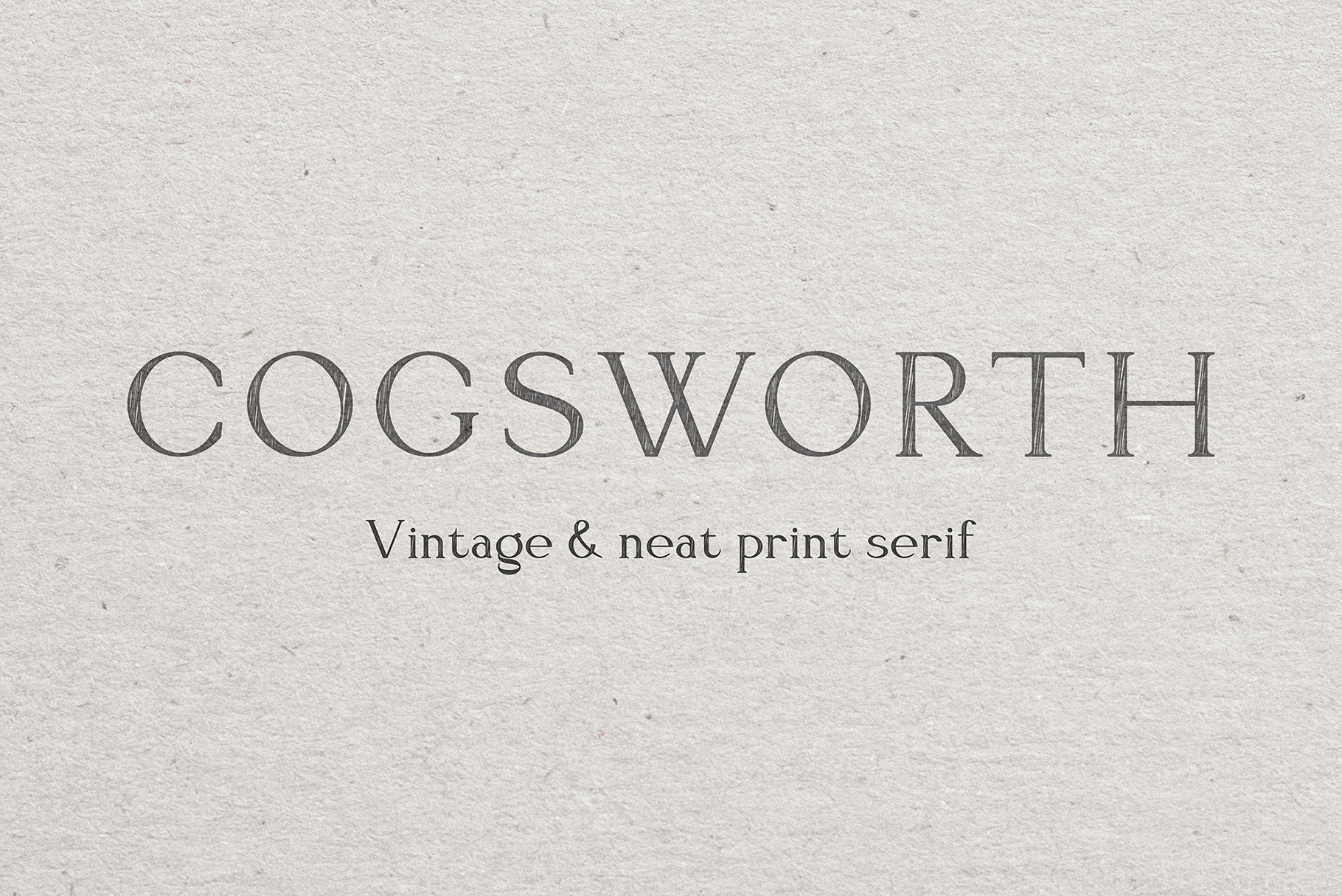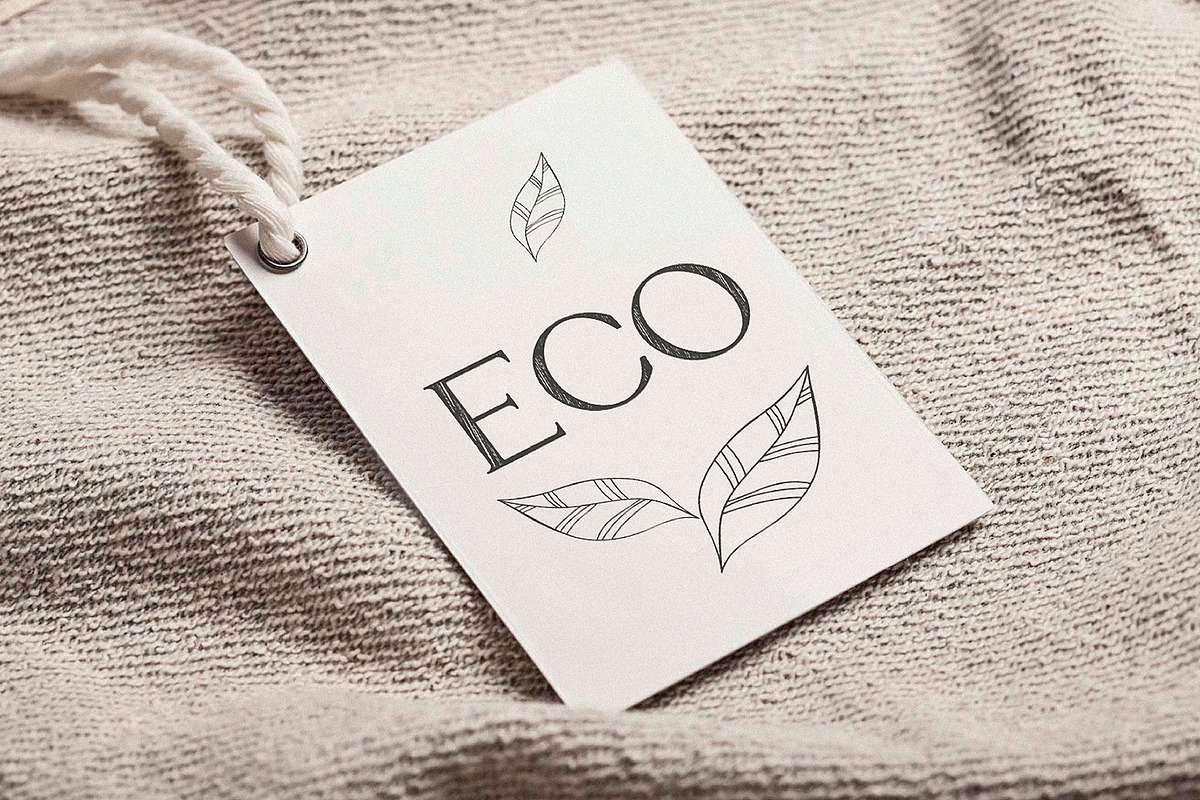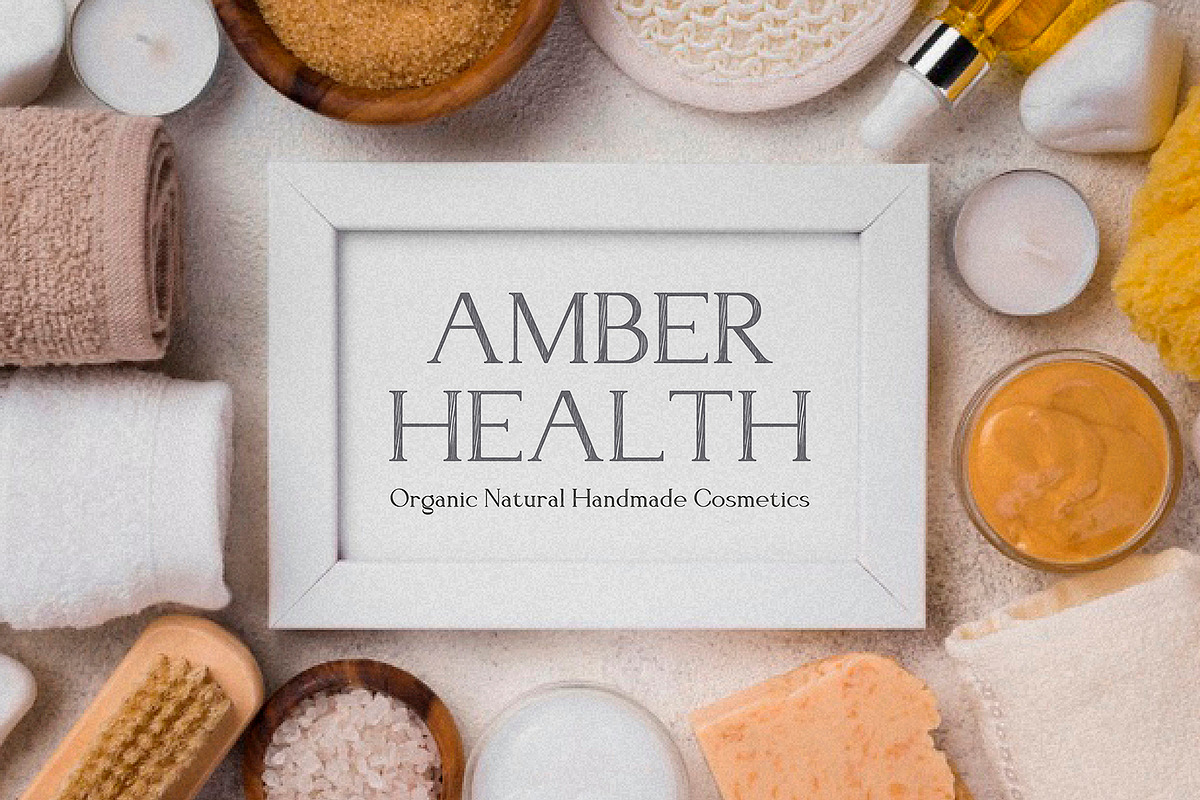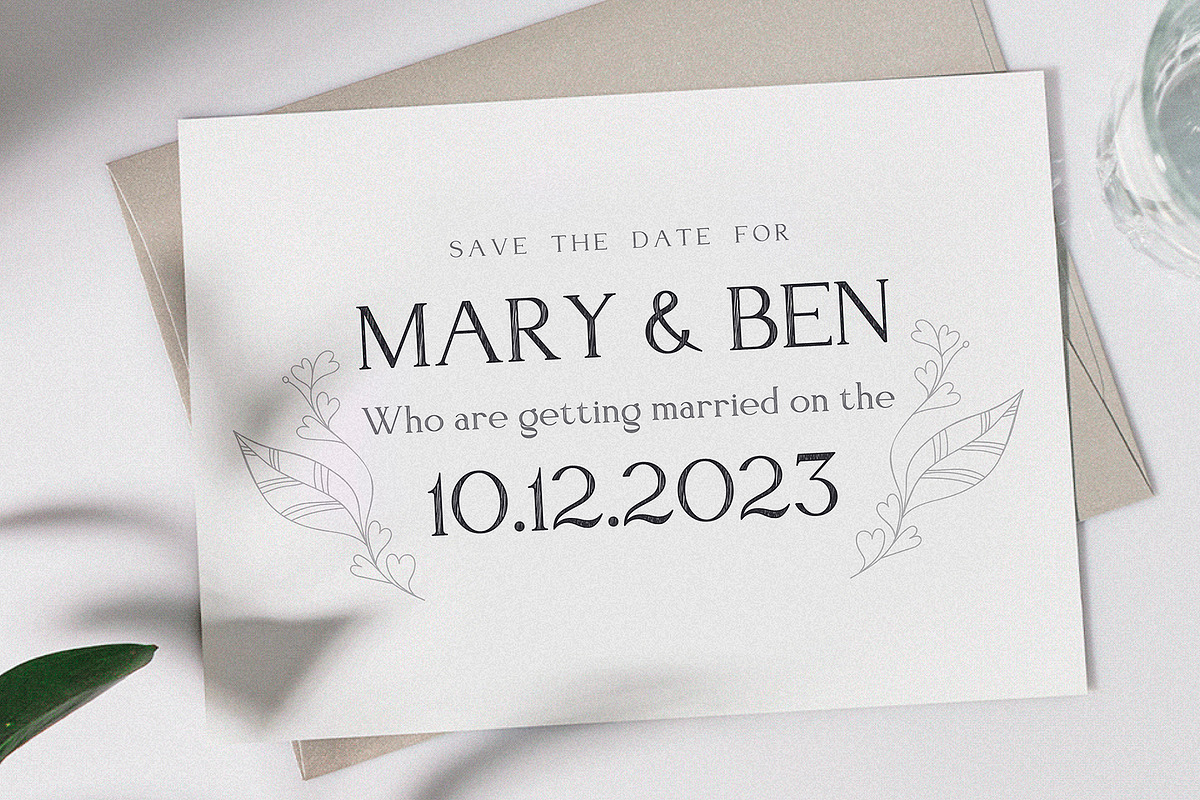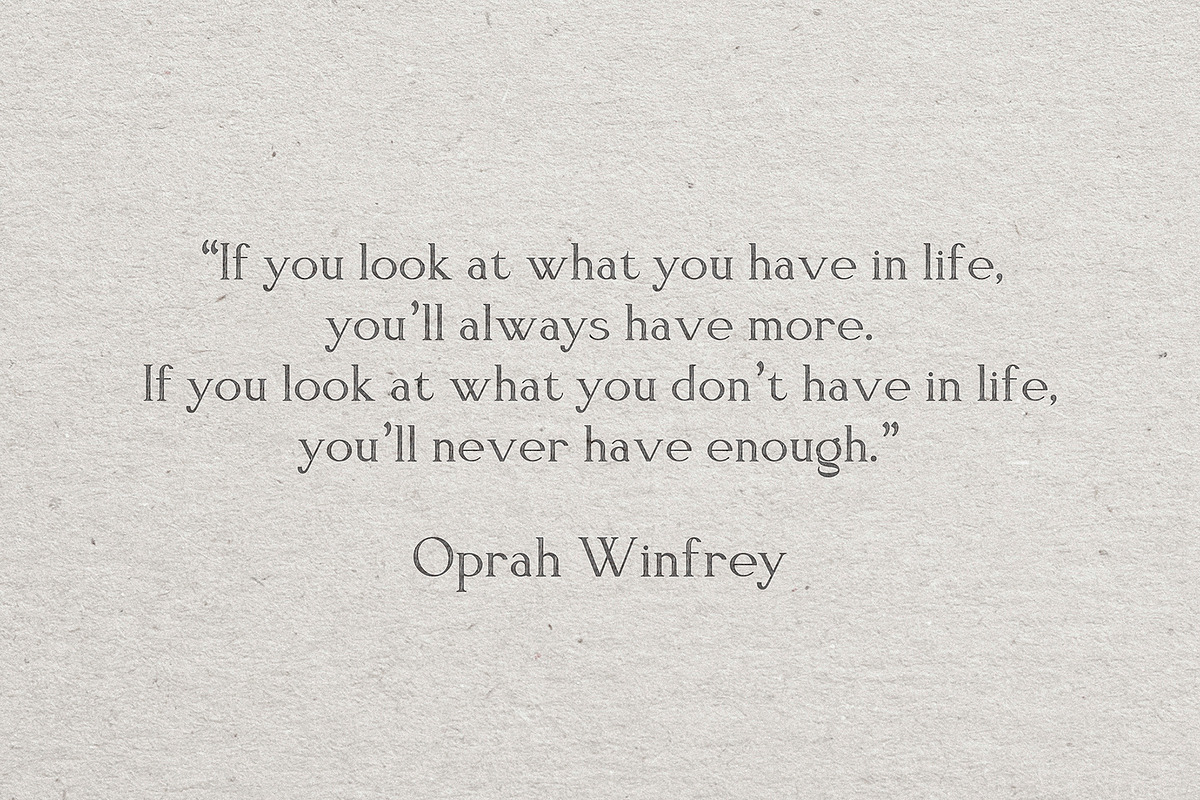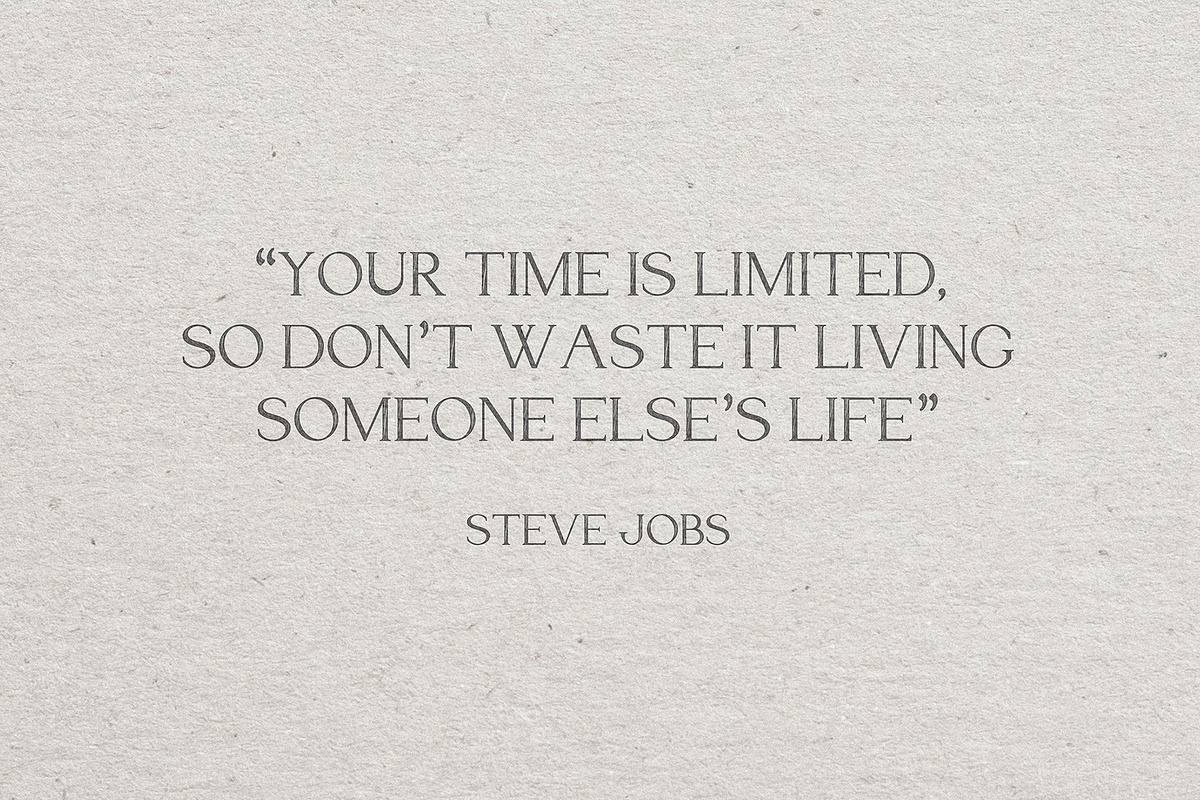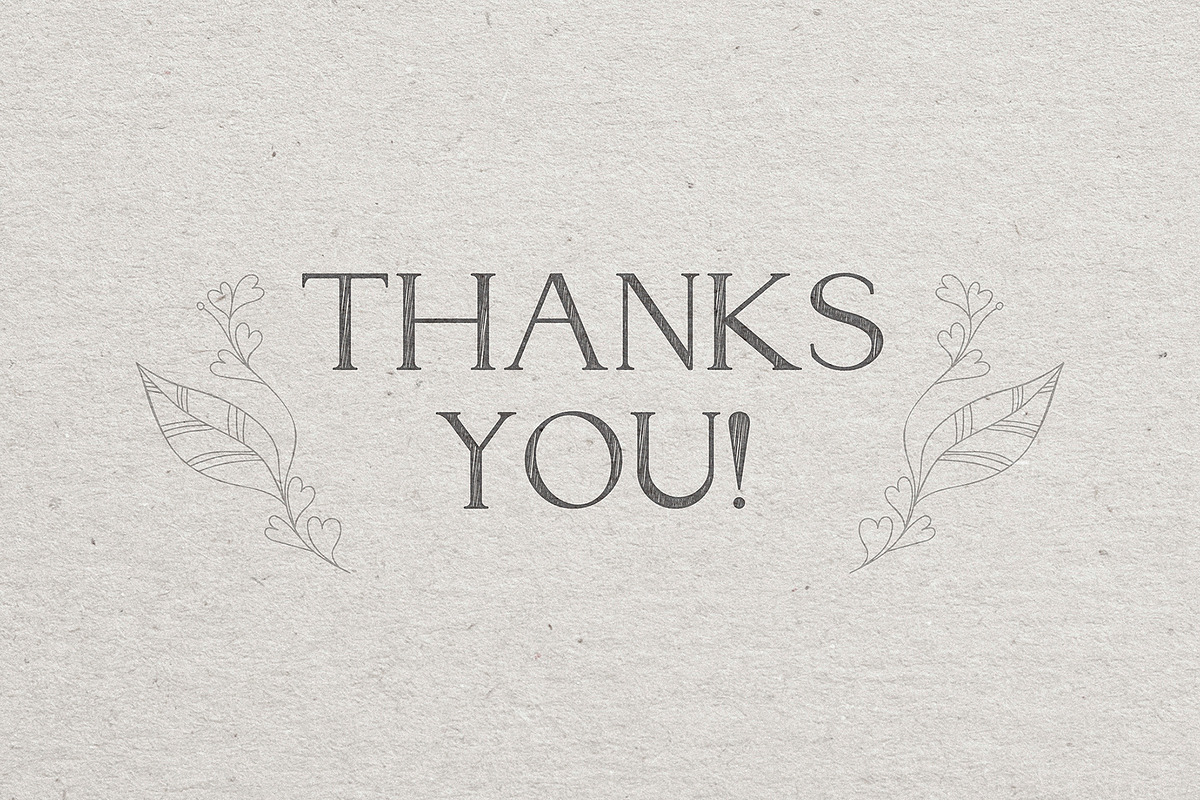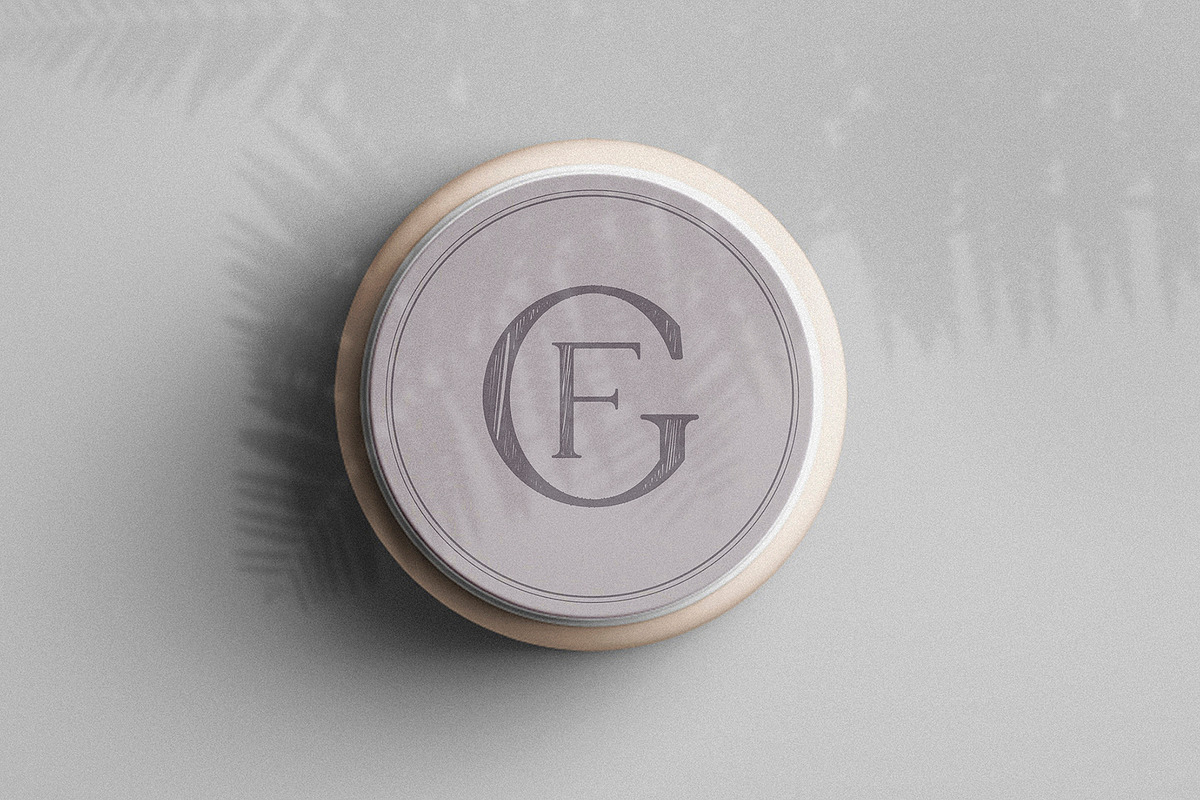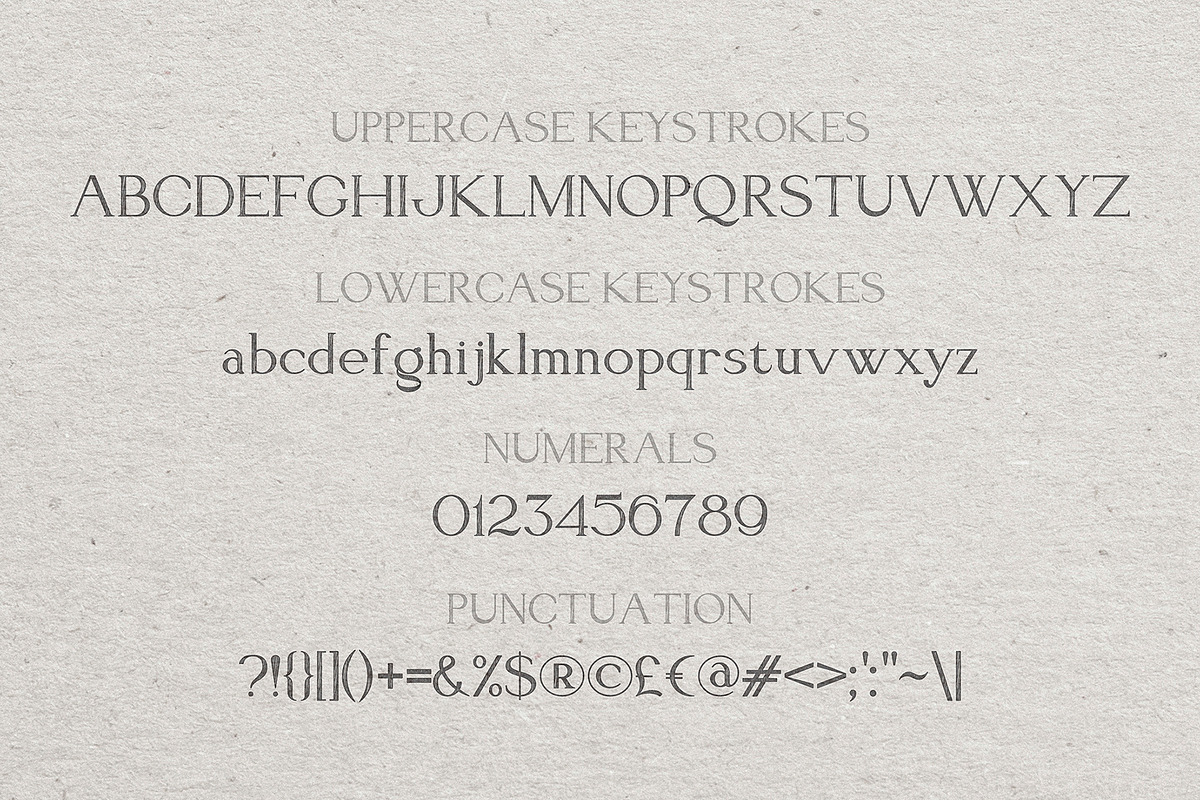
Neat serif font "Cogsworth"
Get to know the natural and neat font "Cogsworth"! This beautiful neat retro font with imperfect ink edges and a little careless shading is inspired by nature. Eco-friendly fashion takes into account the health of consumers, the health of the planet. The "Cogsworth" font is perfectly combined with any stylized graphics, watercolors, and also looks great on its own as part of a minimalist design. Play with letters to get different effects.
Great for branding, wedding invitation design, packaging design, quotes, label design and more.
A font containing uppercase and lowercase letters, numbers, and a wide range of punctuation marks.